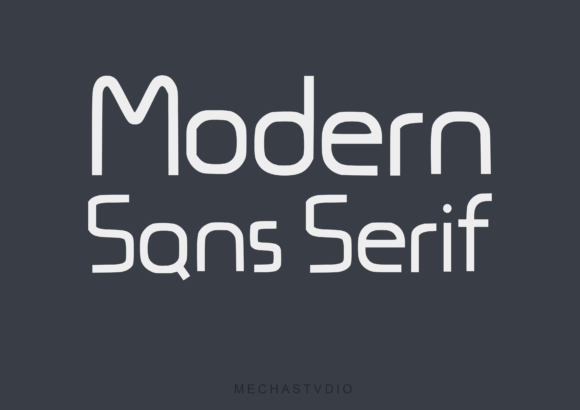
Introducing Eleven Font: The Modern, Clean, and Simple Sans Serif Solution
In the world of typography, fonts play a crucial role in making or breaking a design. A perfect font can elevate your project, making it stand out from the crowd, while a poorly chosen one can lead to a lackluster outcome. For designers and crafters looking for a modern, clean, and simple sans serif font, Eleven Font is an excellent choice. In this article, we’ll dive into the features and benefits of Eleven Font, exploring how it can transform your projects into true standouts.
What is Eleven Font?
Eleven Font is a contemporary sans serif font designed to cater to the needs of modern designers and crafters. Its clean and simple style makes it an ideal choice for a wide range of projects, from branding and advertising to digital media and print materials. The font’s unique style is characterized by its geometric shapes, balanced proportions, and exceptional legibility.
Key Features of Eleven Font
- Modern and Clean Design: Eleven Font boasts a sleek and modern design, making it perfect for projects that require a fresh and contemporary look.
- Simple and Elegant: The font’s simplicity and elegance ensure that it can be used in a variety of contexts, from minimalist designs to more complex compositions.
- Exceptional Legibility: Eleven Font is designed to be highly legible, even at small sizes, making it suitable for use in body text, captions, and other applications where readability is crucial.
- Versatile and Adaptable: The font’s versatility and adaptability make it an excellent choice for a wide range of projects, from digital media to print materials.
Benefits of Using Eleven Font
So, why choose Eleven Font for your projects? Here are just a few benefits of using this exceptional font:
- Enhance Your Brand’s Visual Identity: Eleven Font can help you create a strong and consistent visual identity for your brand, setting you apart from competitors.
- Improve Readability and Legibility: The font’s exceptional legibility ensures that your message is conveyed clearly and effectively, regardless of the medium or platform.
- Streamline Your Design Process: With Eleven Font, you can simplify your design process, focusing on the creative aspects of your project rather than spending time searching for the perfect font.
- Elevate Your Design’s Aesthetic Appeal: The font’s modern and clean design makes it an excellent choice for designers looking to add a touch of sophistication and elegance to their work.
How to Use Eleven Font in Your Projects
Using Eleven Font in your projects is straightforward and easy. Here are a few tips to get you started:
- Pair it with Other Fonts: Experiment with pairing Eleven Font with other fonts to create a unique and visually appealing typography scheme.
- Use it in Headings and Body Text: The font’s exceptional legibility makes it suitable for use in both headings and body text, ensuring a consistent look and feel throughout your project.
In conclusion, Eleven Font is an exceptional sans serif font that offers a unique combination of modernity, cleanliness, and simplicity. Its versatility, adaptability, and exceptional legibility make it an excellent choice for designers and crafters looking to elevate their projects and create a lasting impression. Whether you’re working on a branding project, digital media, or print materials, Eleven Font is sure to transform your work into a true standout.